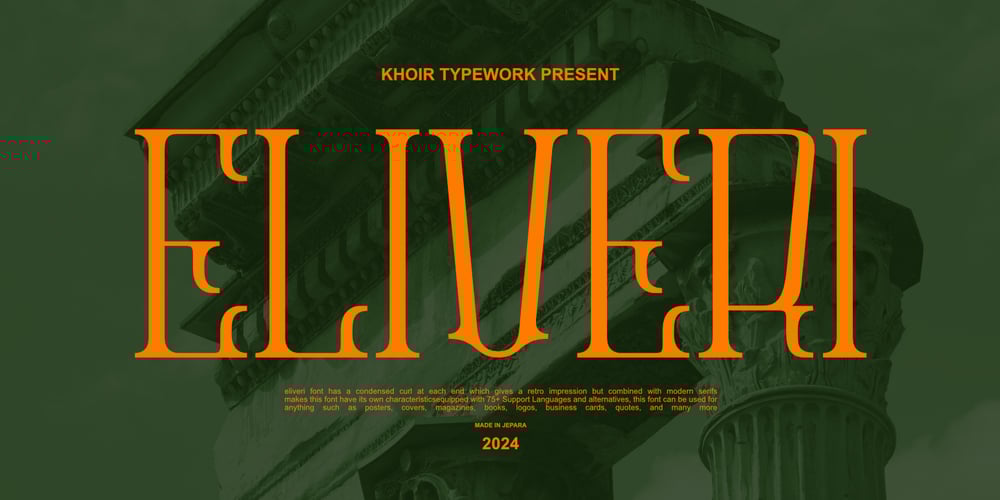
Eliveri Font Family was designed by Muhammad Romzul Khoir and published by Khoir. Eliveri contains 1 styles and family package options. Eliveri font has thick curls at each end, giving it a retro impression but combined with a modern serif makes this font have its own characteristics. Equipped with 75+ Supporting Languages and alternatives, this font can be used anything like posters, covers, magazines, books, logos, business cards, quotes, and much more. Eliveri Uppercase 75+ Language Alternates So what are you waiting for? immediately purchase this font, feel free to comment, or send me my PM or email at khoirtypework@gmail.com Thank you for seeing